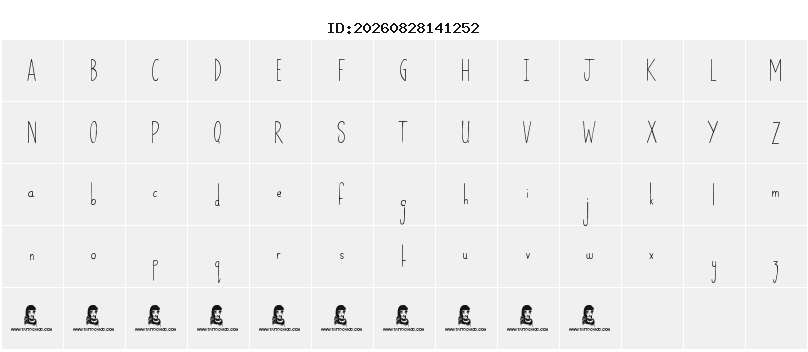
Today is the Oldest and Younges Preview
• Font Name: Today is the Oldest and Younges
• Font ID: Today is the Oldest and Youngest You Will Ever Be:Version 1.00
• Full Font Name: Today is the Oldest and Youngest You Will Ever Be
• Version: Version 1.00 April 3, 2013, initial release
• PostScript Name: Today is the Oldest and Youngest You Will Ever Be
About Today is the Oldest and Younges.ttf
Today is the Oldest and Younges.ttf is a modern, elegant sans-serif font designed for ultimate readability and visual harmony. Perfect for branding, headlines, web design, and print materials.